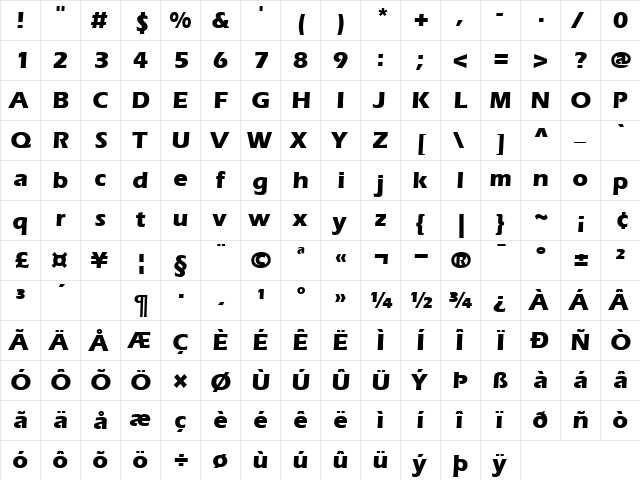
ItcEras Bold
Design Context for ItcEras Typeface
ItcEras is a composed and adaptable typeface that performs quietly and consistently across a wide range of design contexts. Its bold stroke weight gives it real presence on the page.